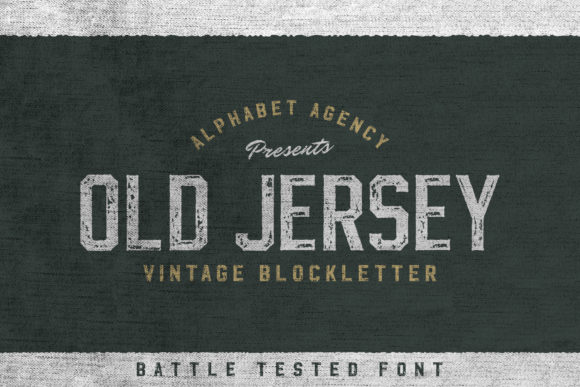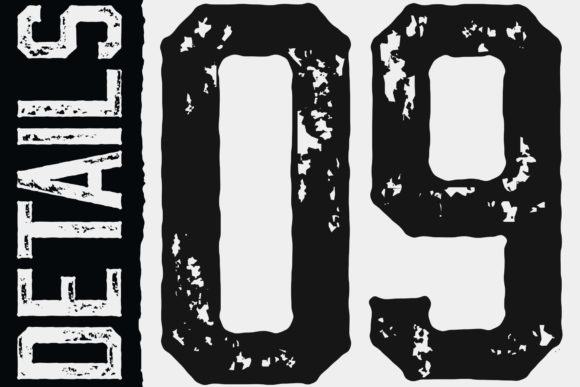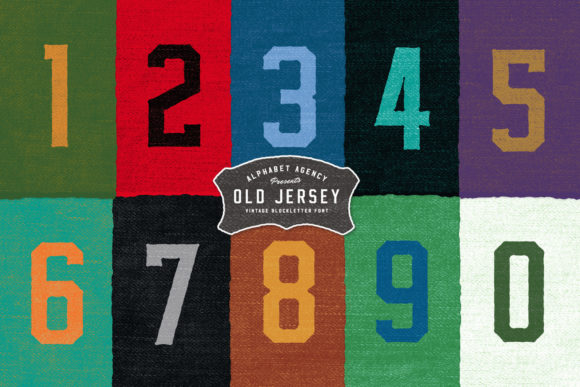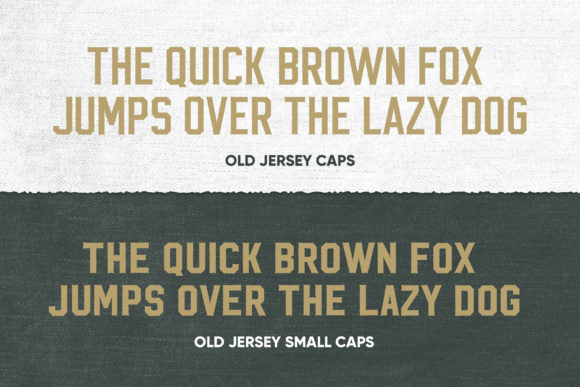
Old Jersey Font: A Bold Vintage Display Font for Cricut & DIY
About the Old Jersey Font
Let us introduce you to Old Jersey Font, where timeless design meets modern craftsmanship. Old Jersey is a cool, vintage styled and rough textured display font. This adaptable font will look great on a variety of design ideas. It will add a distinct touch to each of your projects!
Old Jersey excels as a display font for headlines, posters, and branding projects requiring a vintage, rugged aesthetic. Its textured quality makes it ideal for short impactful statements, logos, or packaging designs where a retro feel is desired. Avoid using it for body text or lengthy paragraphs; its strong character and texture would hinder readability.
Its core personality is bold and slightly rebellious, conveying a sense of vintage coolness. This makes it a perfect fit for brands aiming for a retro, Americana, or motorcycle-inspired image.
Pairing Old Jersey with a clean sans-serif like Montserrat for body copy, or a more delicate script font such as Great Vibes for secondary text, would create a balanced and visually appealing design. A geometric sans-serif could also work well to provide a modern counterpoint to its vintage feel.
Old Jersey Font Example